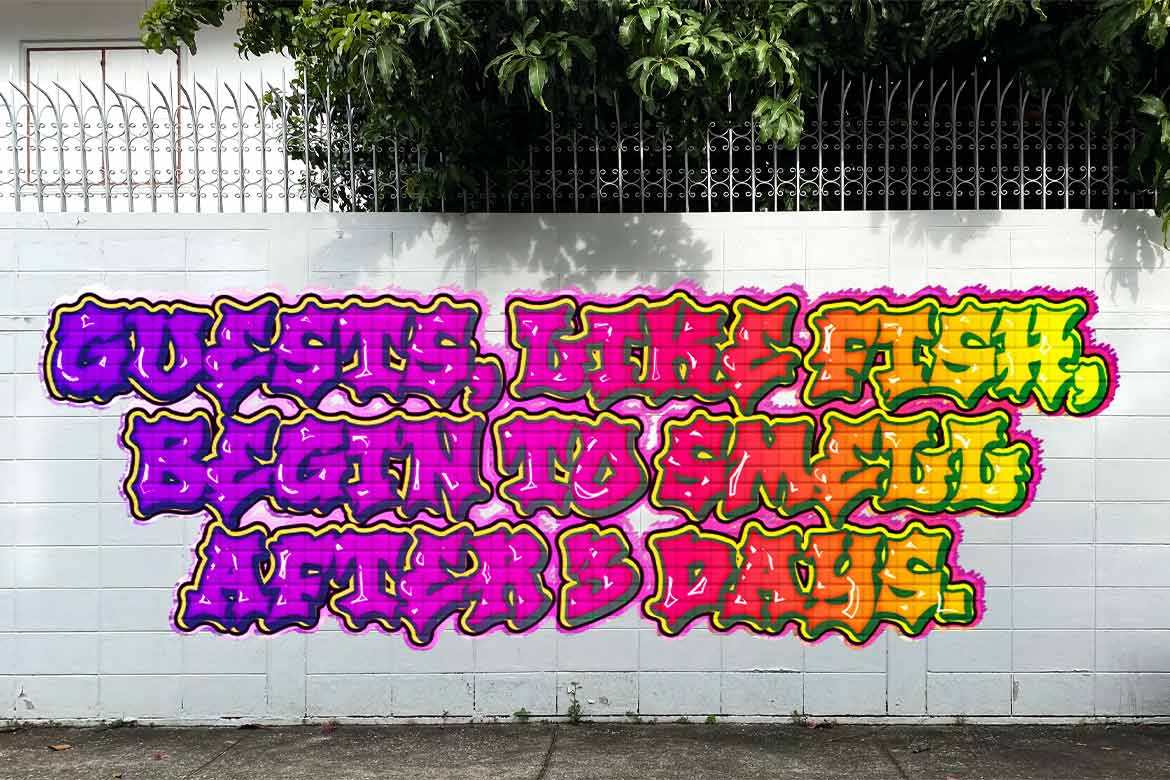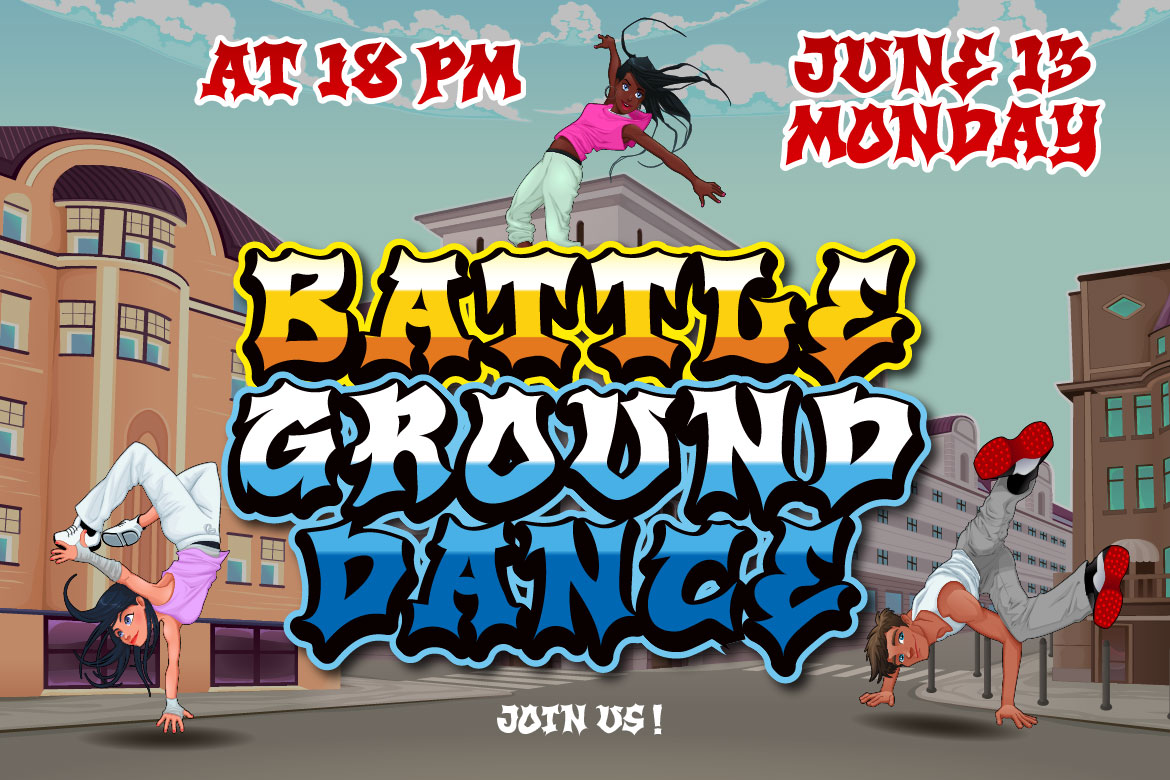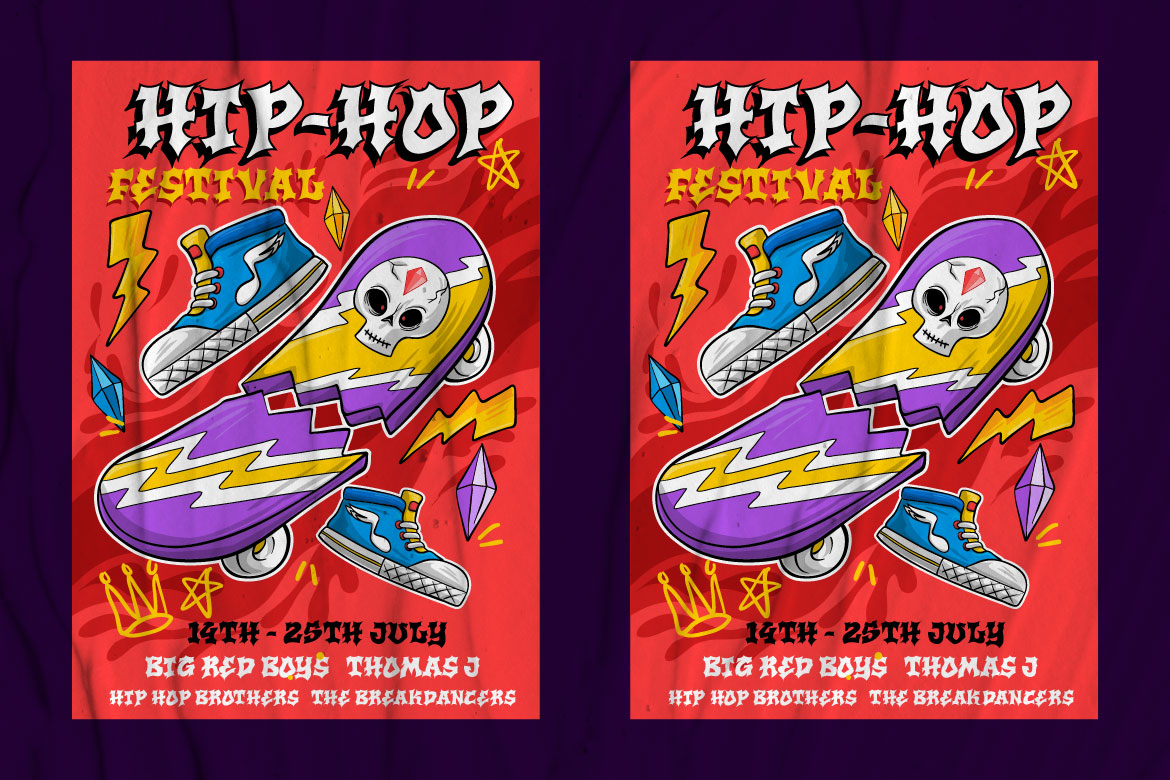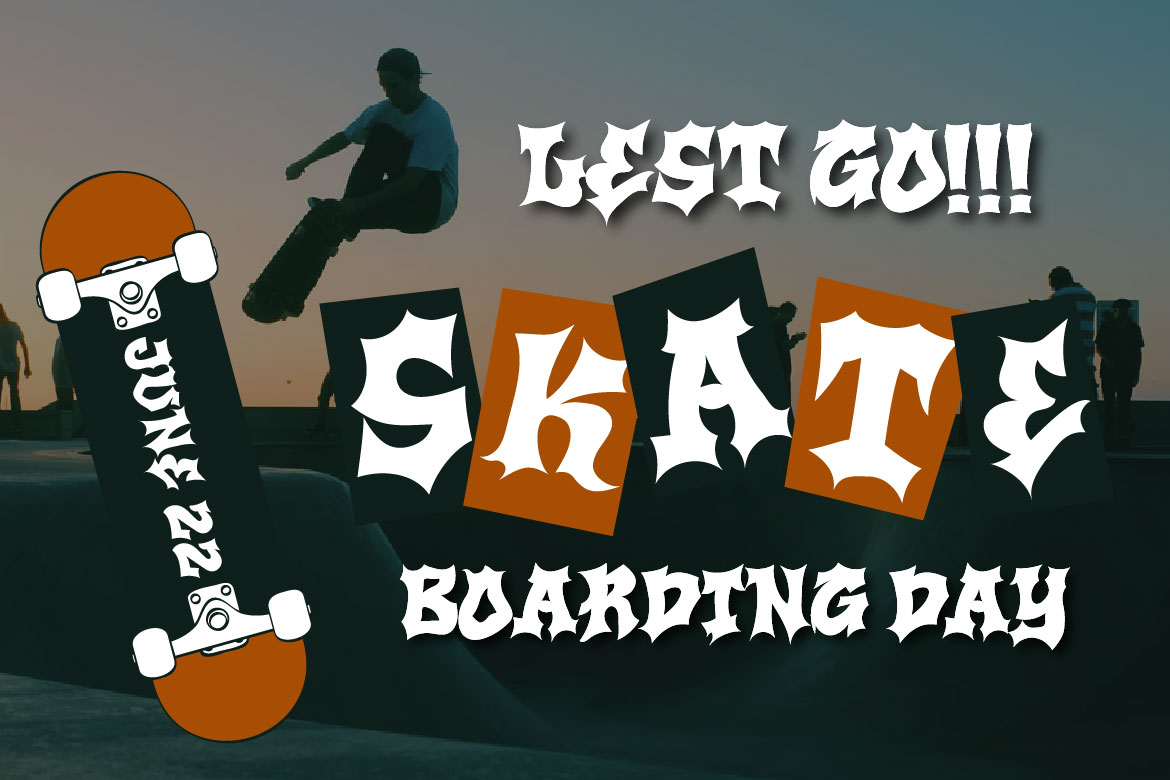
Respact Font
Respact Display Font
It’s a one-of-a-kind graffiti font with an abstract and magnificent shape that is especially intended for those of you who want a bombastic, original, beautiful, and strong character to make your project stand out from the crowd. Don’t hesitate to use this font; your project will stand out. It is sleek and has a great level of sophistication.
This graffiti font is great for product logos, poster titles, headlines, packaging, film titles, logotypes, gorgeous writing, and trendy graffiti designs, among other things.
Of course, if you utilize this font in your numerous creative projects, they will be perfect and outstanding. Use this typeface right away for your one-of-a-kind and remarkable projects.